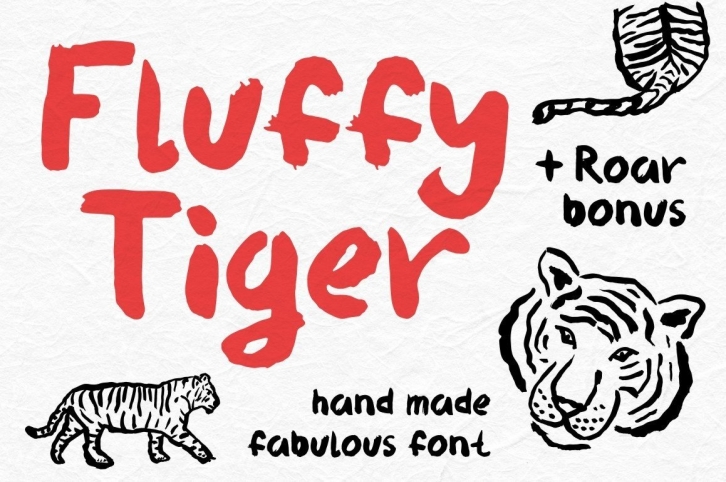
Fluffy Tiger – Hand-made brush font
Soft & passionately handwritten by brush font perfect for statement, flyers, greeting and invitation cards, social media quotes, logo design, apparel design, label, and packaging design, heading, scrapbooking calendars, and book covers. Don’t forget to use cute tiger vector illustrations for your designs.